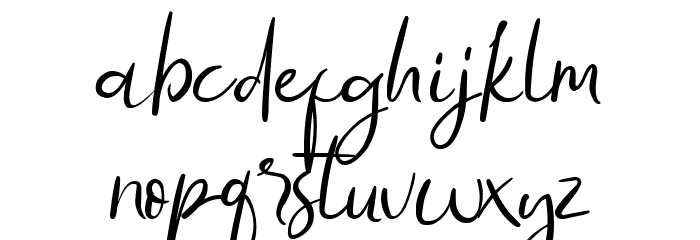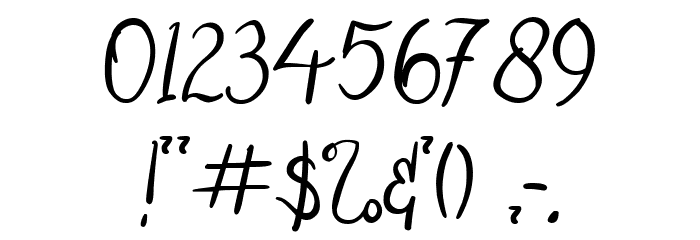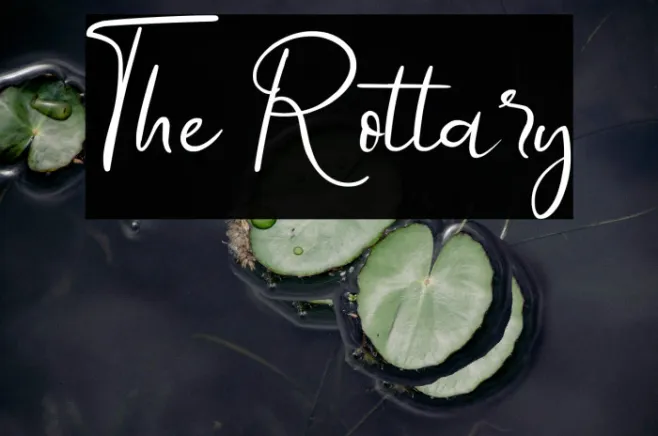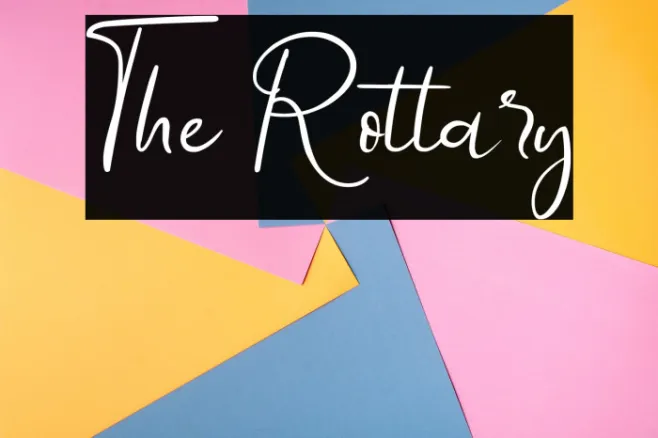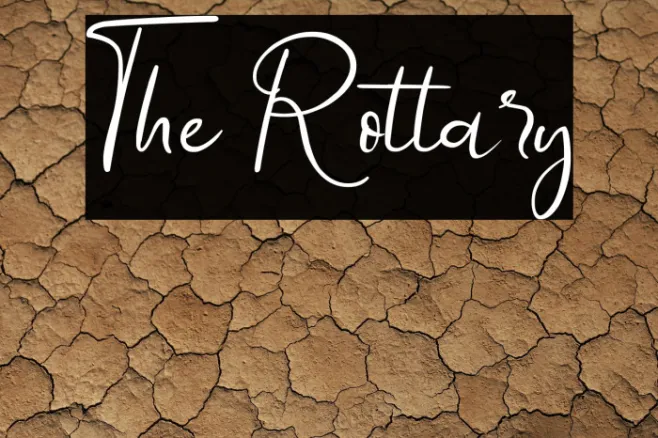
The Rottary Font
This font features a flowing, cursive style that mimics elegant handwriting. The uppercase letters are tall and slender, with graceful loops and swirls that give a sense of sophistication and fluidity. The lowercase letters maintain a consistent style, with smooth curves and a slightly playful touch. Numbers are clear and distinct, maintaining the handwritten aesthetic. Special characters are creatively integrated, adding to the font's overall charm. The font's design is both artistic and readable, making it suitable for a variety of creative applications.
A cursive, handwritten-style font with elegant loops and fluid strokes.
- Proposed Projects: Ideal for wedding invitations, greeting cards, personal branding, and artistic projects.
- Use Case: Logos, Invitations, Artistic projects